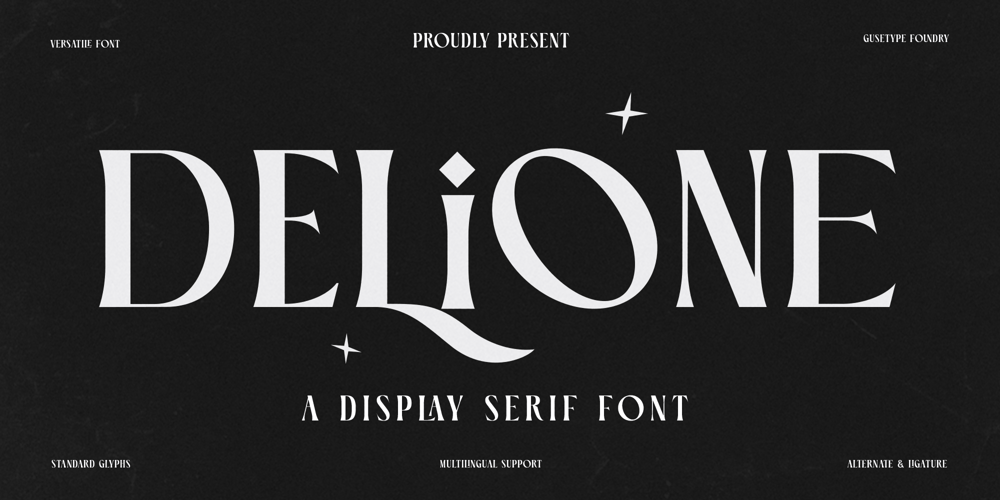
Delione
Delione font
Delione Font Family was designed by Guntur Septyan and published by GuseType. Delione contains 1 styles and family package options. Delione font inspired by star shape that have a sharp edges, because of that Delione font feel more fancy, elegant and luxury. This is a versatile font that can be used in various project like magazines, posters, logo, business card, banner and many more. The important thing of this, Delione font can be increase of your word look more stylize using the features font. Delione font have any features like uppercase and lowercase alphabet, numerals, multilingual support, symbols, punctuation marks, alternative glyphs and ligatures.Thank you for your time.